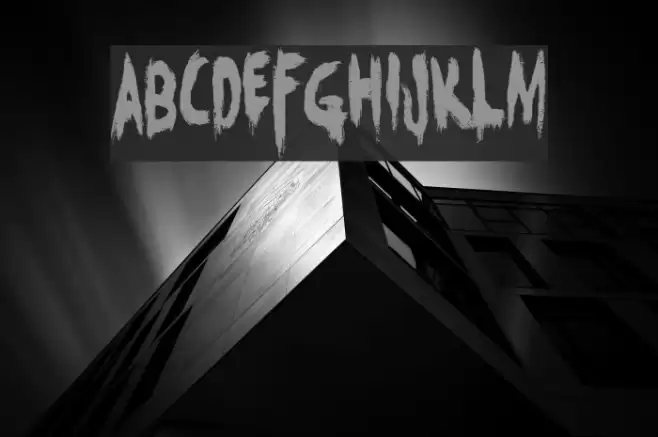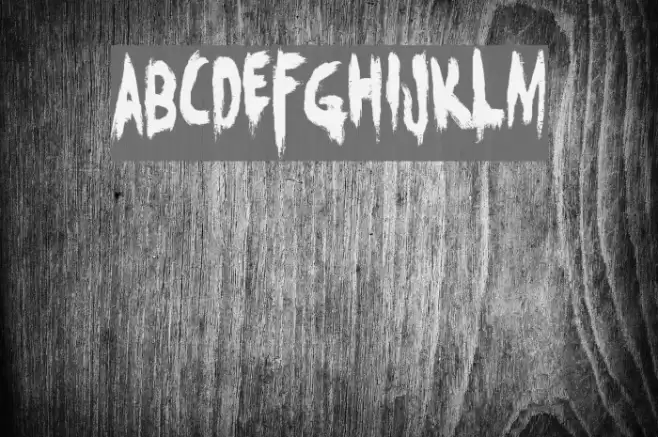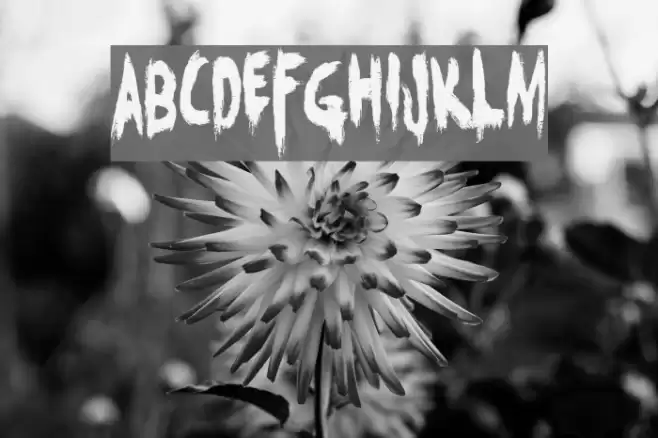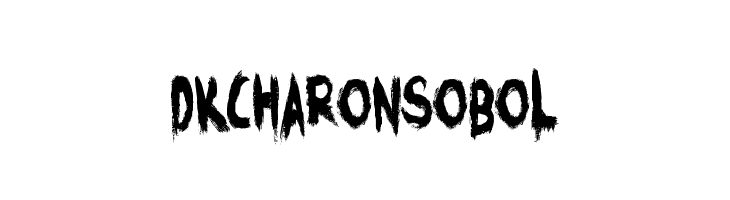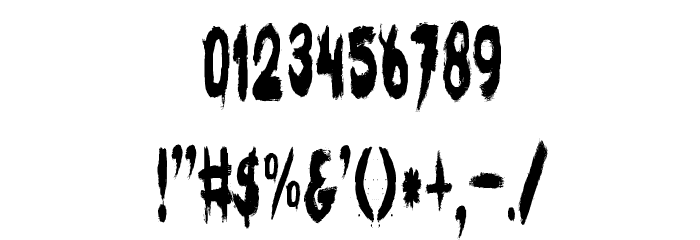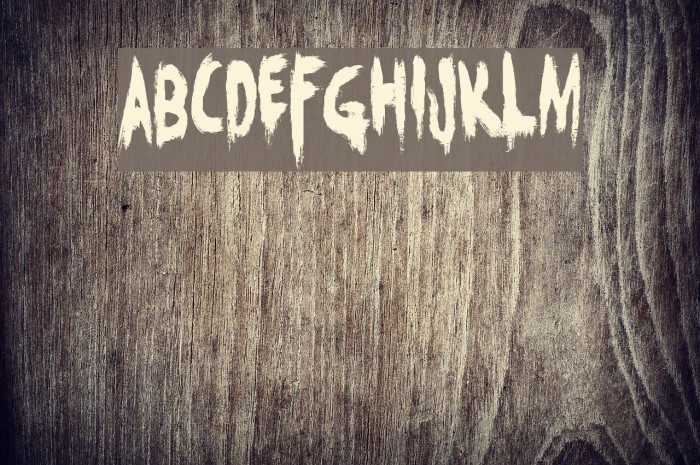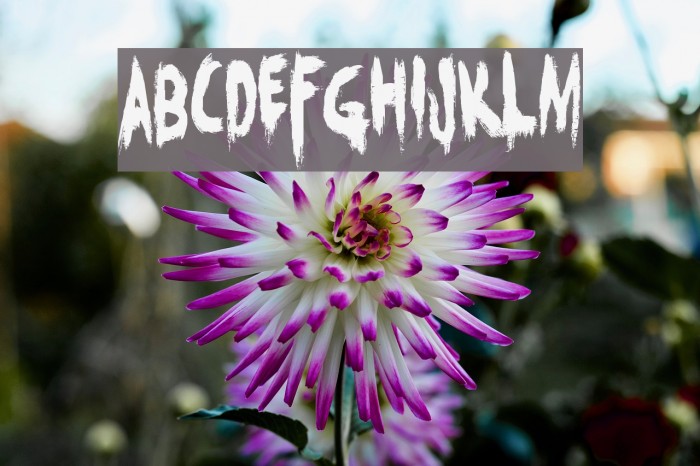
DK Charons Obol Font
DK Charons Obol Description
This font features a bold and distressed appearance, with each character exhibiting a rough, textured edge that gives it a gritty, hand-painted look. The uppercase and lowercase letters maintain a consistent style, with sharp angles and irregular strokes that create a sense of movement and energy. The numbers and special characters follow the same aesthetic, ensuring a cohesive look across all text elements. This font's unique style makes it stand out, ideal for projects that require a dramatic and impactful visual presence.
A bold, distressed font with a gritty, hand-painted look from Uncategorized fonts.
- Proposed Projects: Ideal for horror-themed posters, edgy branding, album covers, and video game graphics.